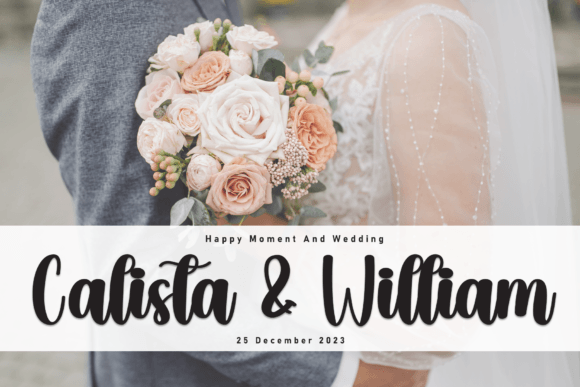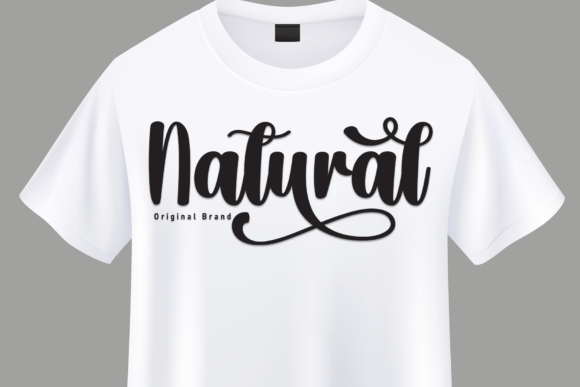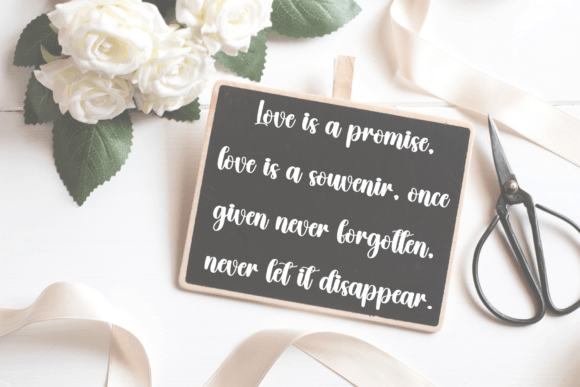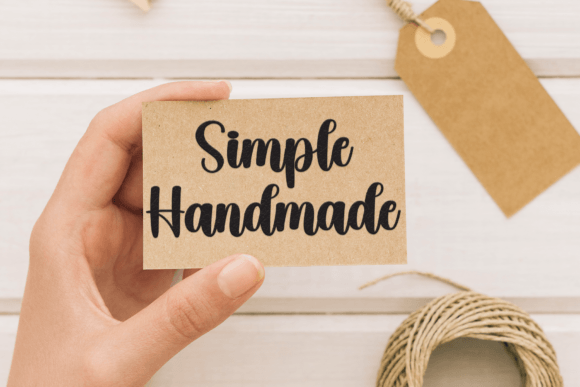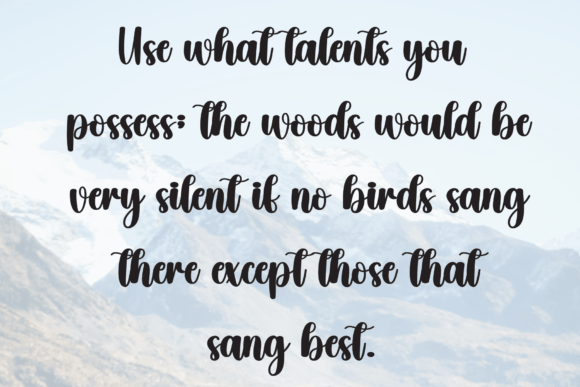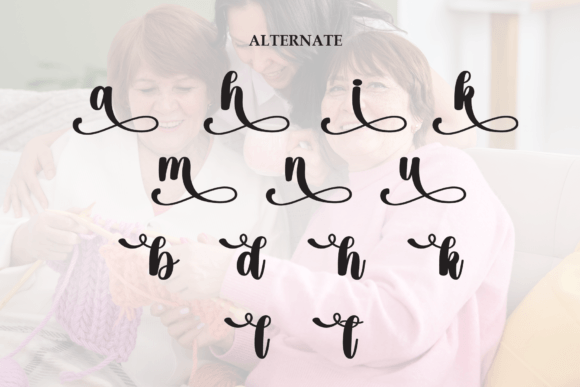
Introducing Chuckle Font: The Perfect Blend of Class and Modernity
Are you tired of using the same old fonts in your designs? Look no further! Chuckle Font is here to revolutionize your creative projects with its exquisite handwritten style. This masterfully designed font combines the elegance of calligraphy with a fresh, contemporary twist, making it a true favorite among designers and crafters.
The Story Behind Chuckle Font
Chuckle Font is more than just a font – it’s a work of art. Its creator poured their heart and soul into designing a font that would be both classy and modern. The result is a beautiful, handwritten font that exudes sophistication and elegance. Whether you’re working on a branding project, a wedding invitation, or a craft project, Chuckle Font is the perfect choice.
What Makes Chuckle Font Special?
So, what sets Chuckle Font apart from other fonts? Here are just a few of its unique features:
- Classy Calligraphic Influences: Chuckle Font maintains the elegance and sophistication of traditional calligraphy, making it perfect for projects that require a touch of luxury.
- Contemporary and Fresh: Despite its classic influences, Chuckle Font feels modern and fresh, making it ideal for designers and crafters who want to stay on-trend.
- Handwritten Style: The font’s handwritten style gives it a personal and approachable feel, making it perfect for projects that require a touch of warmth and personality.
Uses for Chuckle Font
Chuckle Font is incredibly versatile, making it suitable for a wide range of projects, including:
- Branding and Logo Design: Use Chuckle Font to create a unique and memorable brand identity that stands out from the crowd.
- Wedding Invitations and Stationery: Add a touch of elegance and sophistication to your wedding invitations and stationery with Chuckle Font.
- Craft Projects: Use Chuckle Font to add a personal touch to your craft projects, such as handmade cards, gift tags, and scrapbooking.
- Digital Design: Chuckle Font is perfect for digital designers who want to add a touch of elegance and sophistication to their designs, such as social media graphics, blog headers, and website titles.
Why Choose Chuckle Font?
With so many fonts available, why choose Chuckle Font? Here are just a few reasons:
- Unique and Exclusive: Chuckle Font is a one-of-a-kind font that will make your designs stand out from the crowd.
- Elegant and Sophisticated: The font’s classy calligraphic influences and modern twist make it perfect for designers and crafters who want to add a touch of luxury to their projects.
Get Ready to Fall in Love with Chuckle Font
Chuckle Font is a game-changer for designers and crafters who want to take their projects to the next level. With its exquisite handwritten style, classy calligraphic influences, and modern twist, it’s the perfect choice for anyone looking for a unique and elegant font. So why wait? Fall in love with Chuckle Font and bring your projects to the highest levels!
In conclusion, Chuckle Font is a must-have for designers and crafters who want to add a touch of elegance and sophistication to their projects. Its unique blend of classy calligraphic influences and modernity makes it the perfect choice for a wide range of projects, from branding and logo design to wedding invitations and craft projects. So why wait? Get your hands on Chuckle Font today and take your designs to new heights!